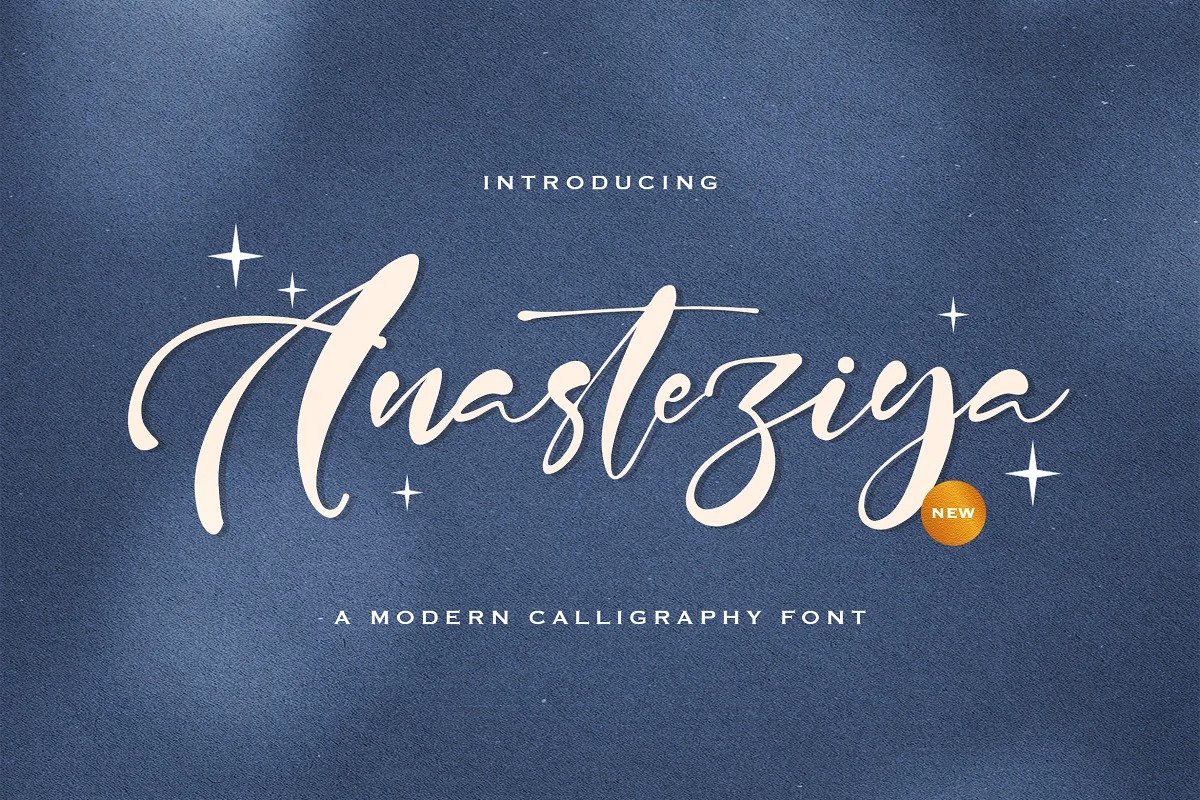
Anasteziya Handwritten Font
This is an exquisite handwritten font, masterfully designed to become a true favorite. It maintains its classy calligraphic influences while feeling contemporary and fresh. This font is ideal to be applied to t-shirt designs, cards, books or magazines, t-shirt designs and so on. Fall in love with it and bring your projects to the highest levels!